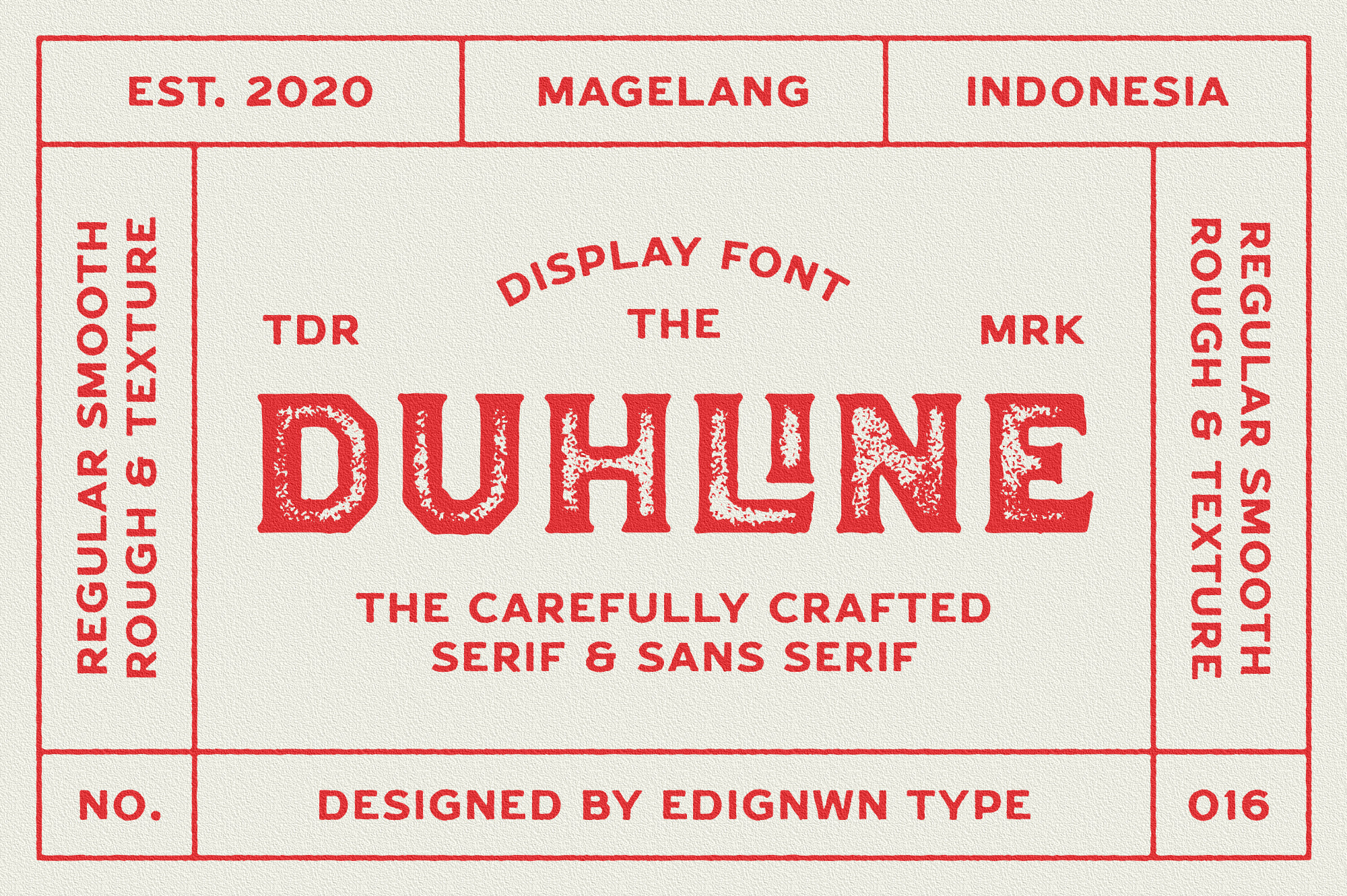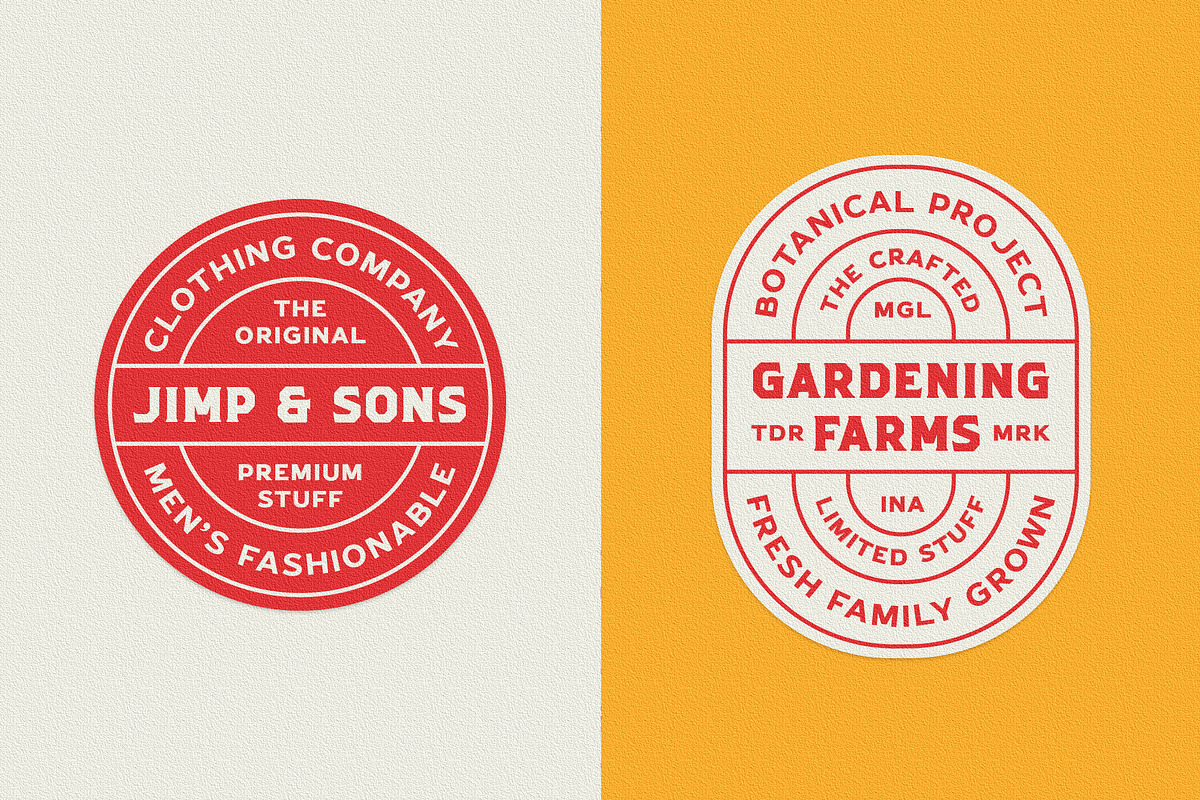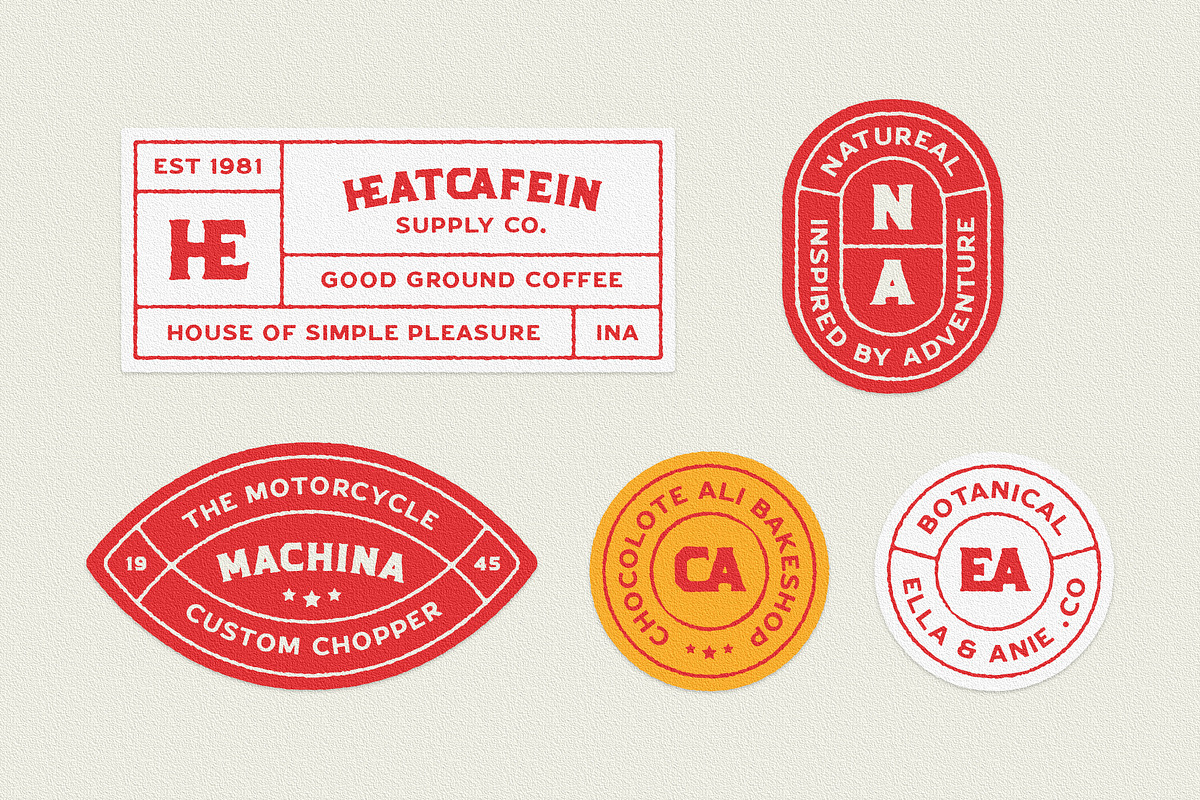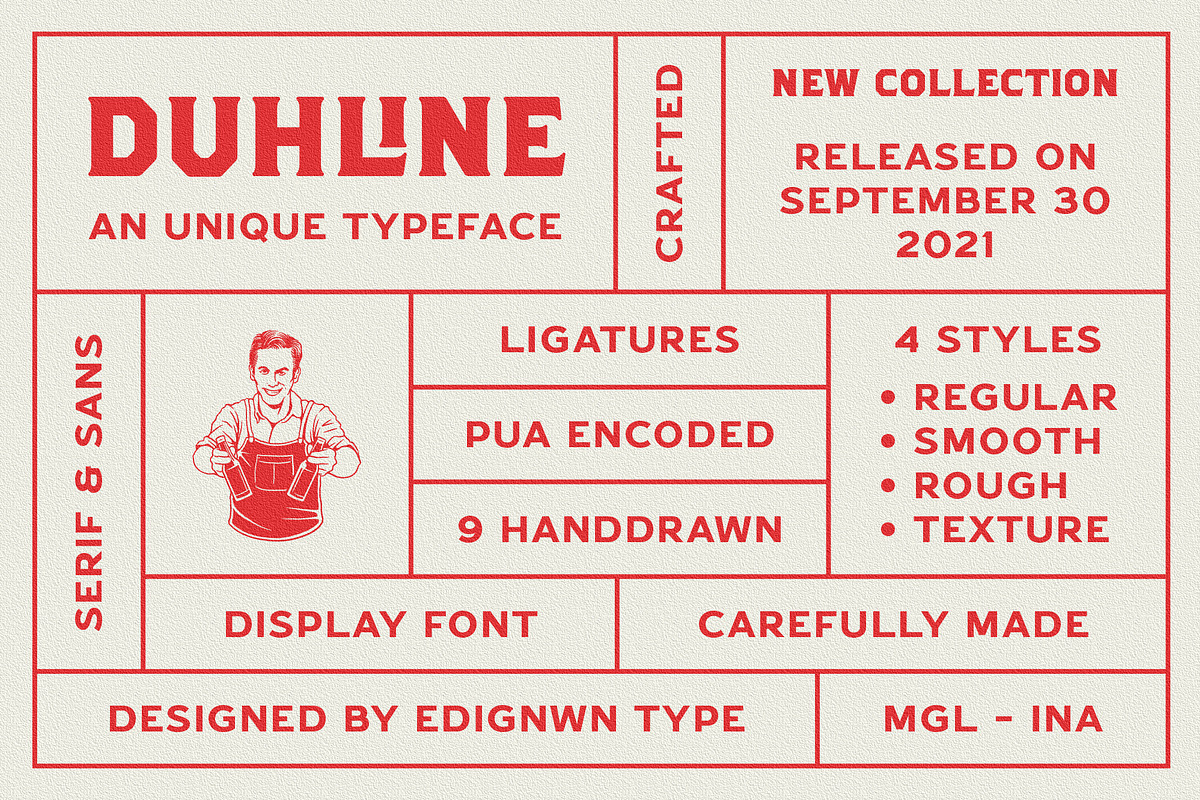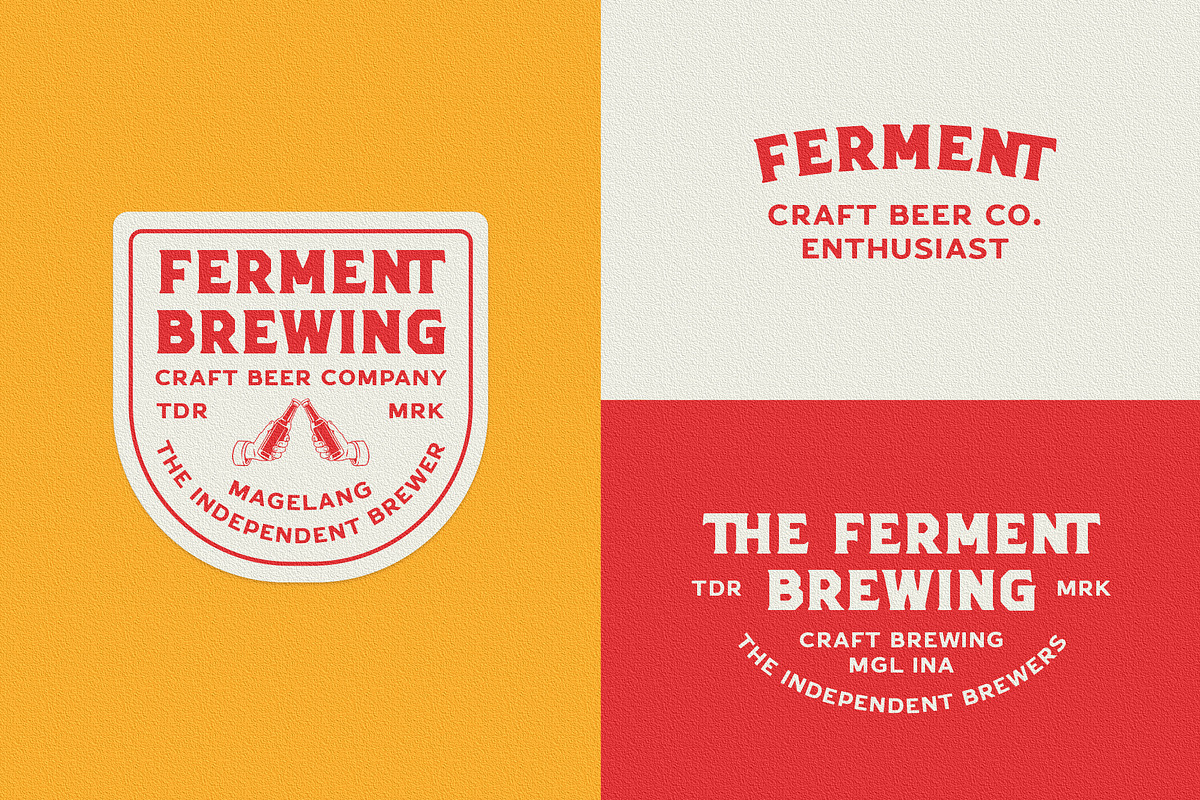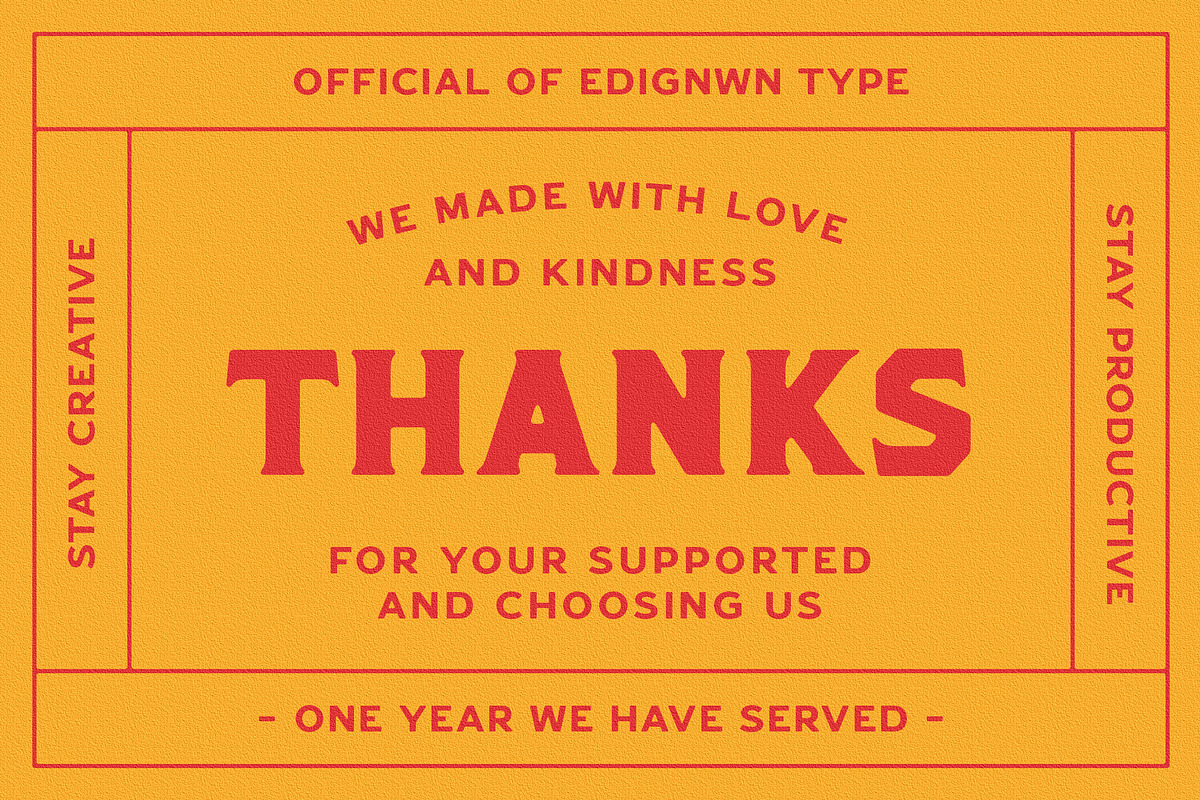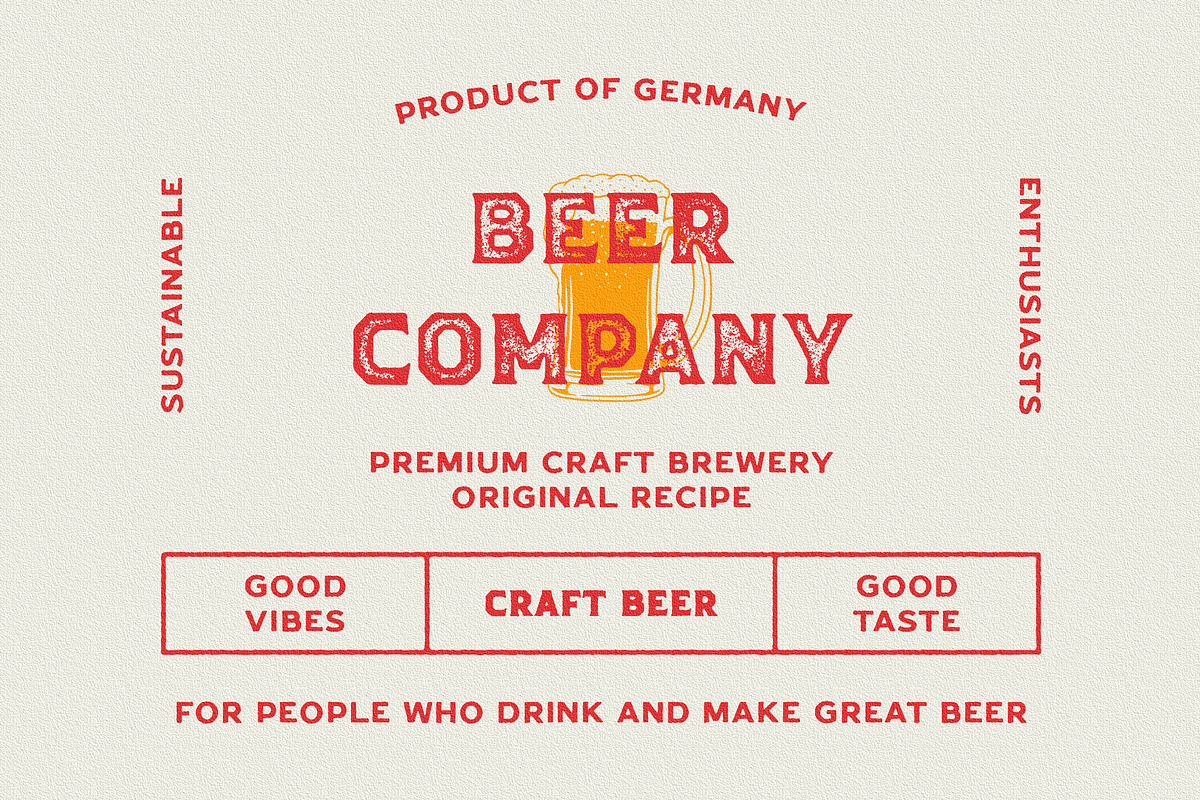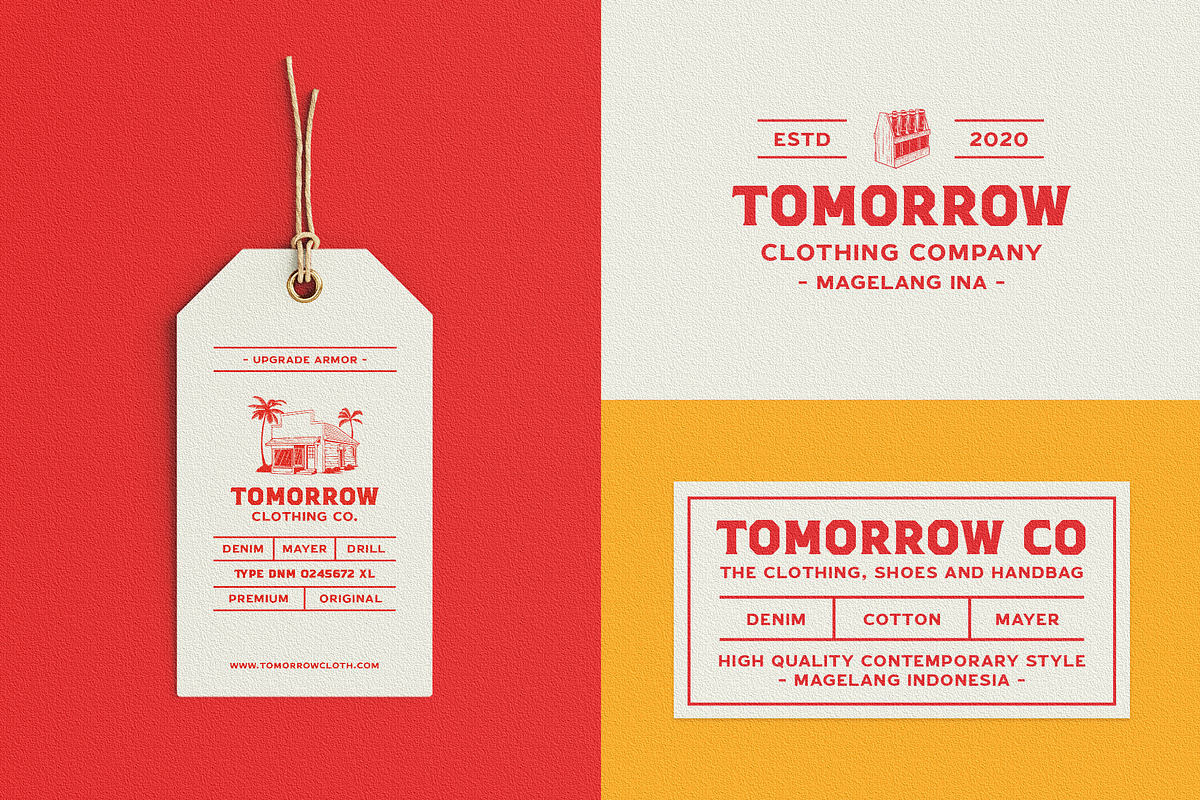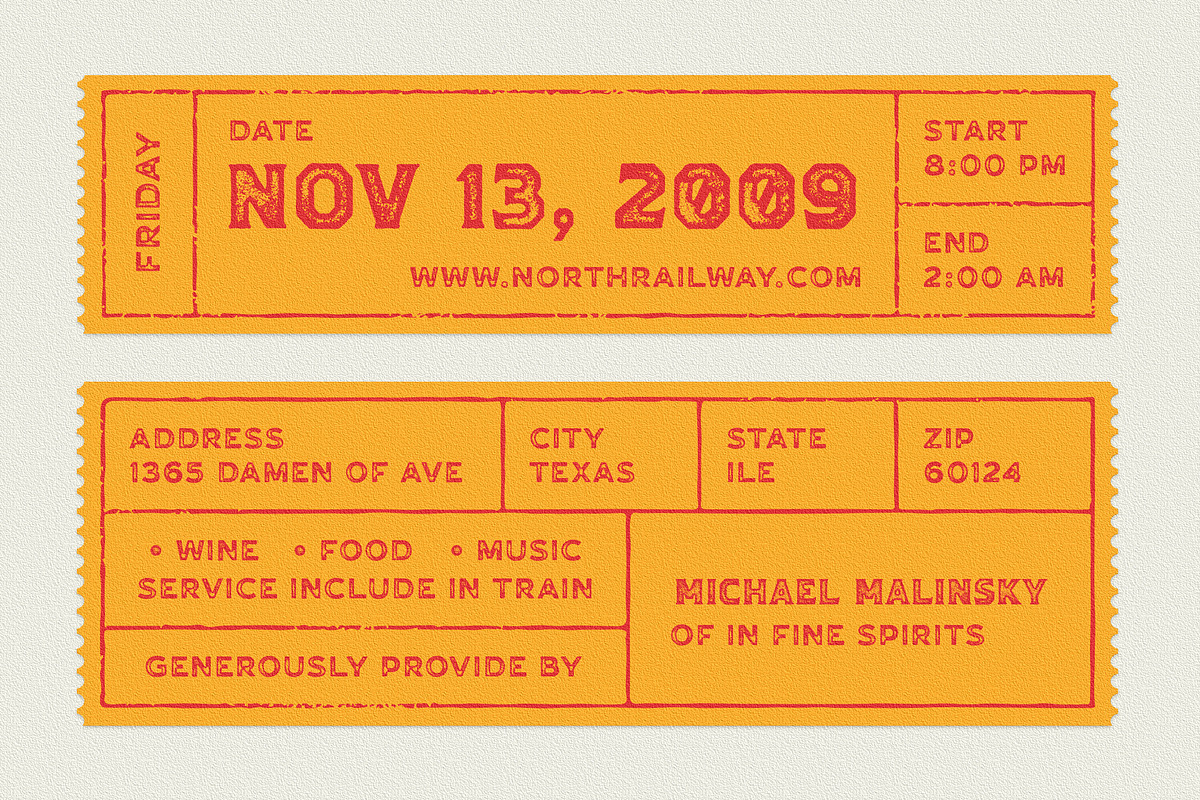
Duhline - Display Font
The font collection is called "Duhline", it is a display font for logotype. These collections contain serif and sans serif font. Every font comes with 4 style typefaces (regular, smooth, rough and texture). This texture style includes some different stamp for uppercase and lowercase. Extras 9 hand-drawn illustrations about beer. The Duhline matches apply in some designs such as the logo, poster, label, badge, packaging, t-shirt, branding, quotes and more custom design.
Duhline features :
- 4 style typefaces (regular, smooth, rough and texture)
- All-caps, numeral, symbol and punctuation and ligature in serif font
- All-caps, numeral, symbol and punctuation in sans serif font